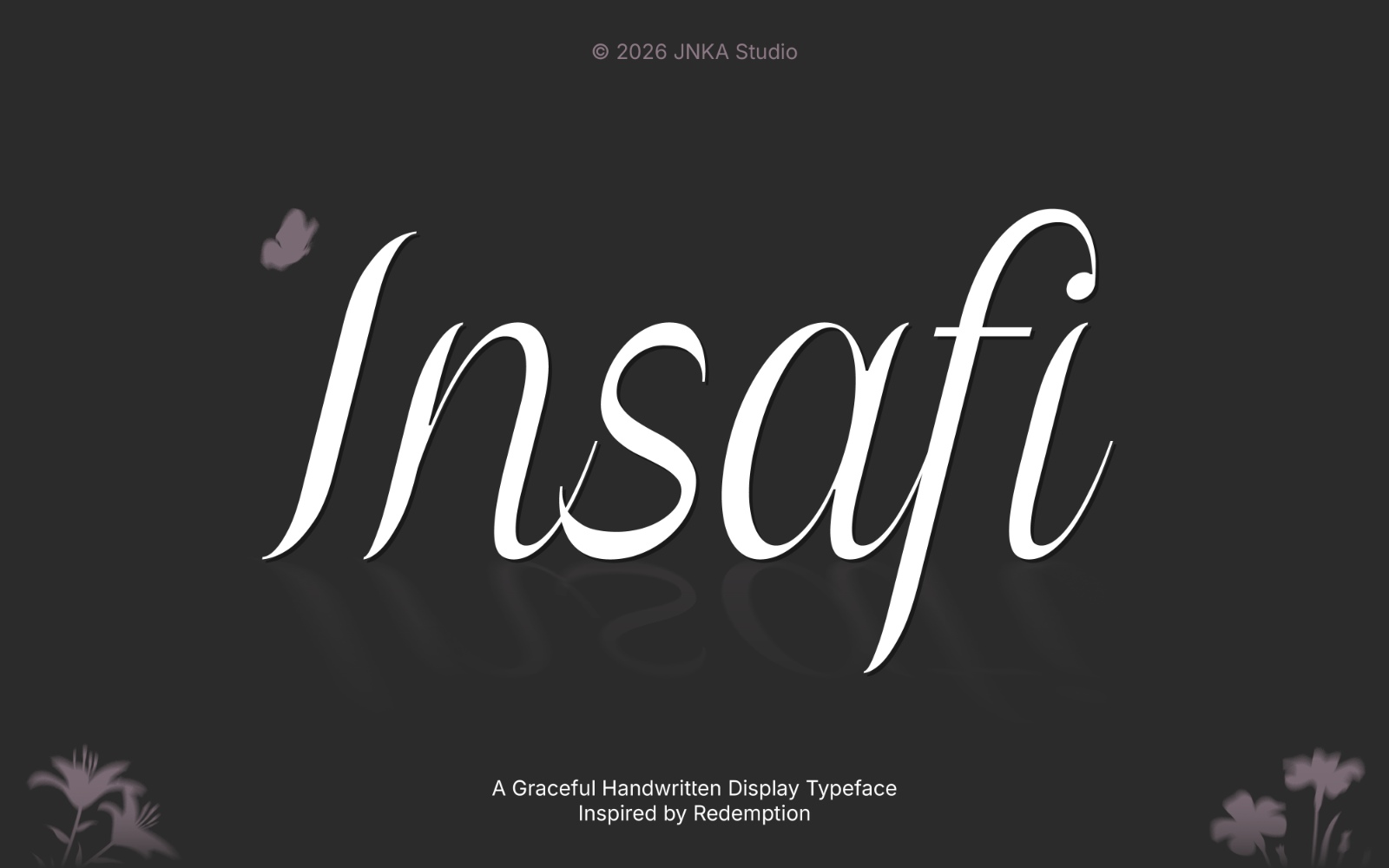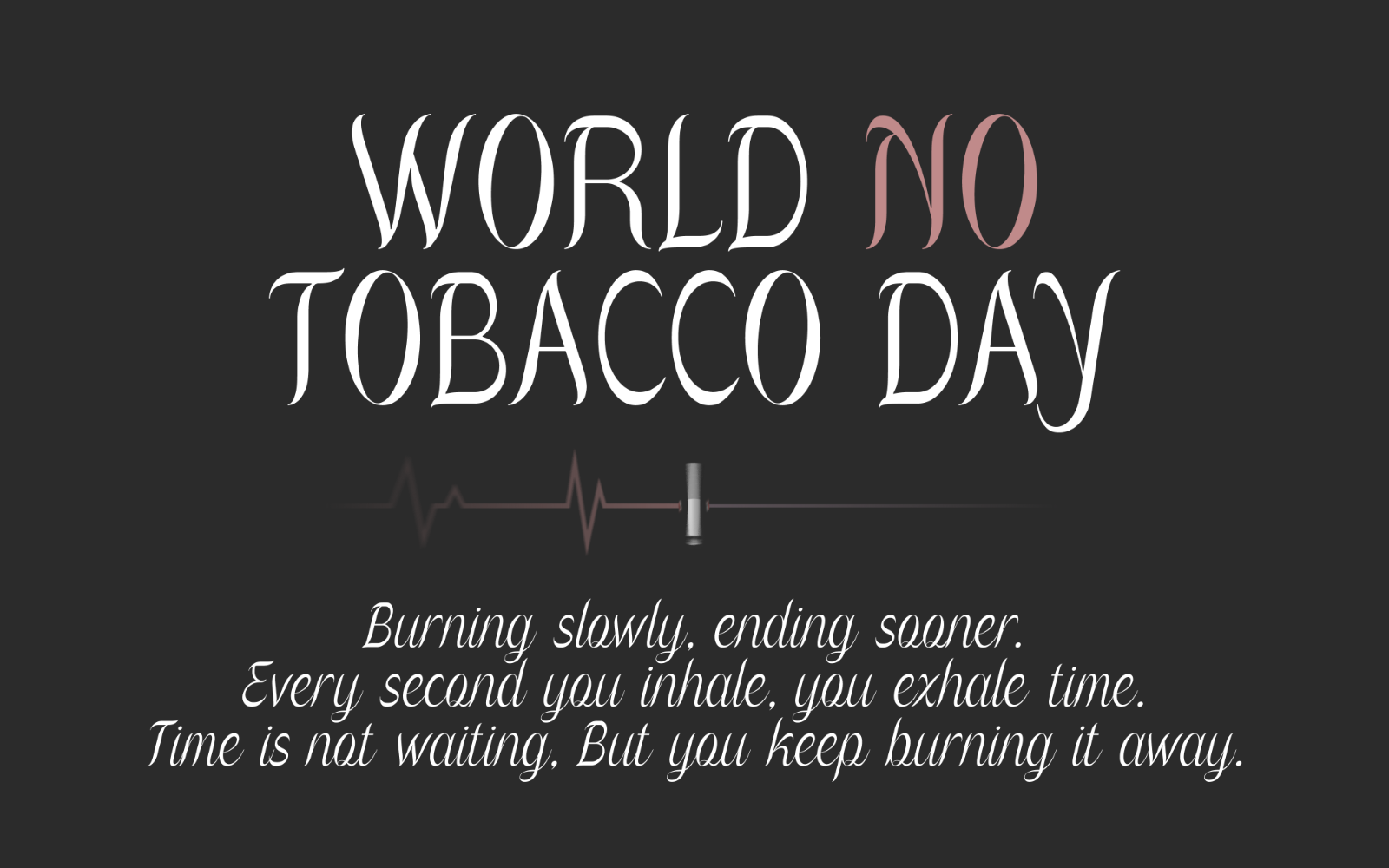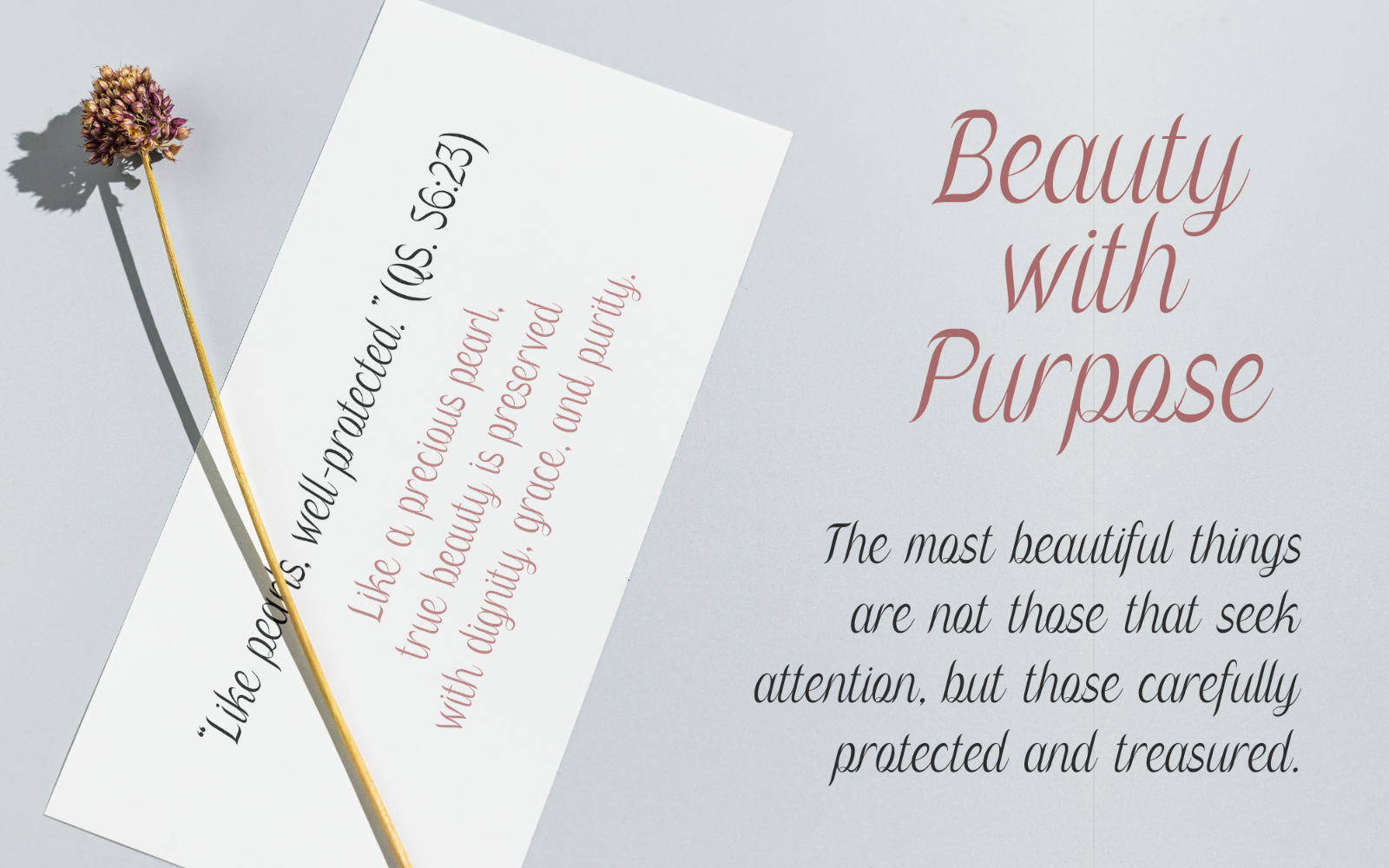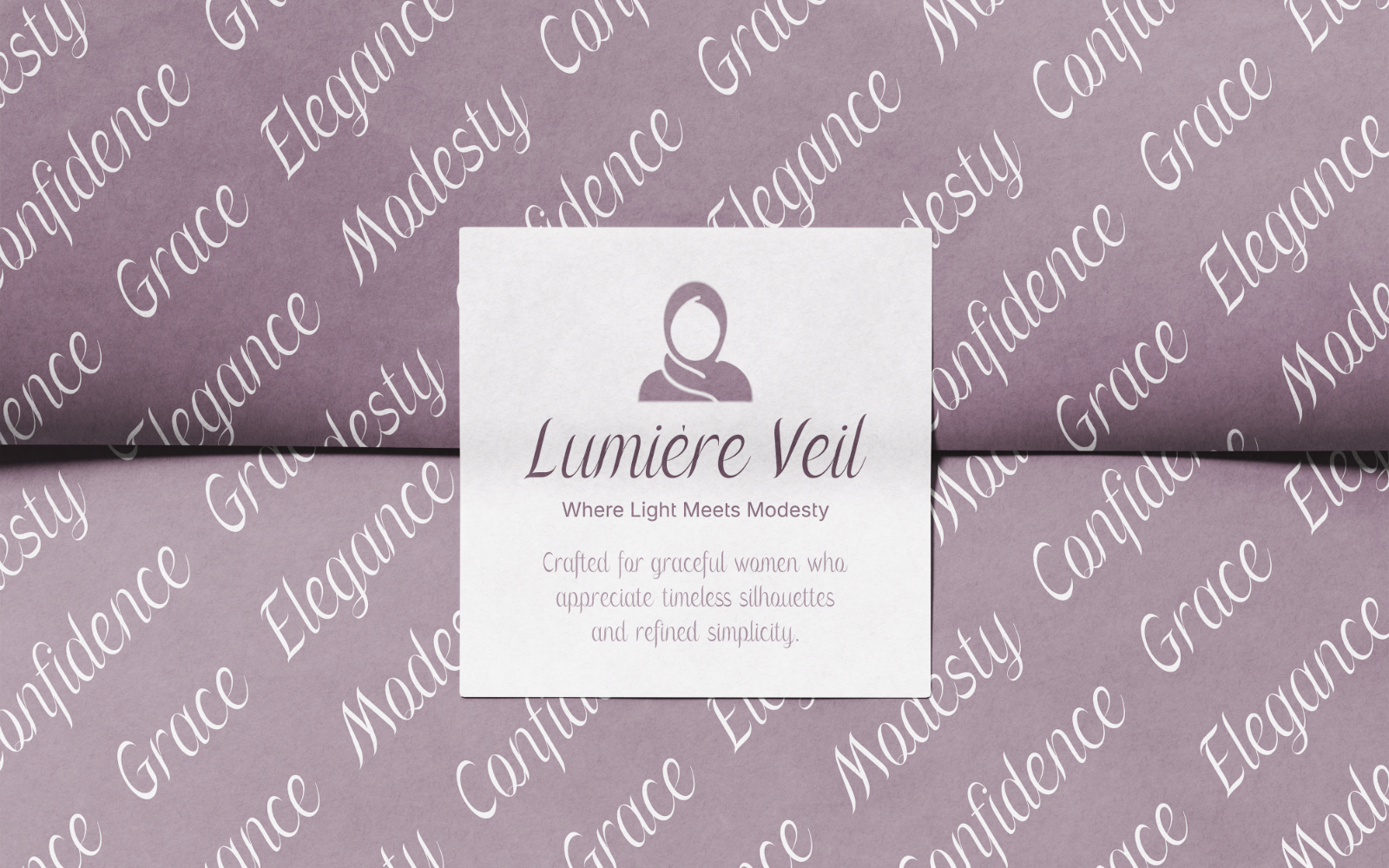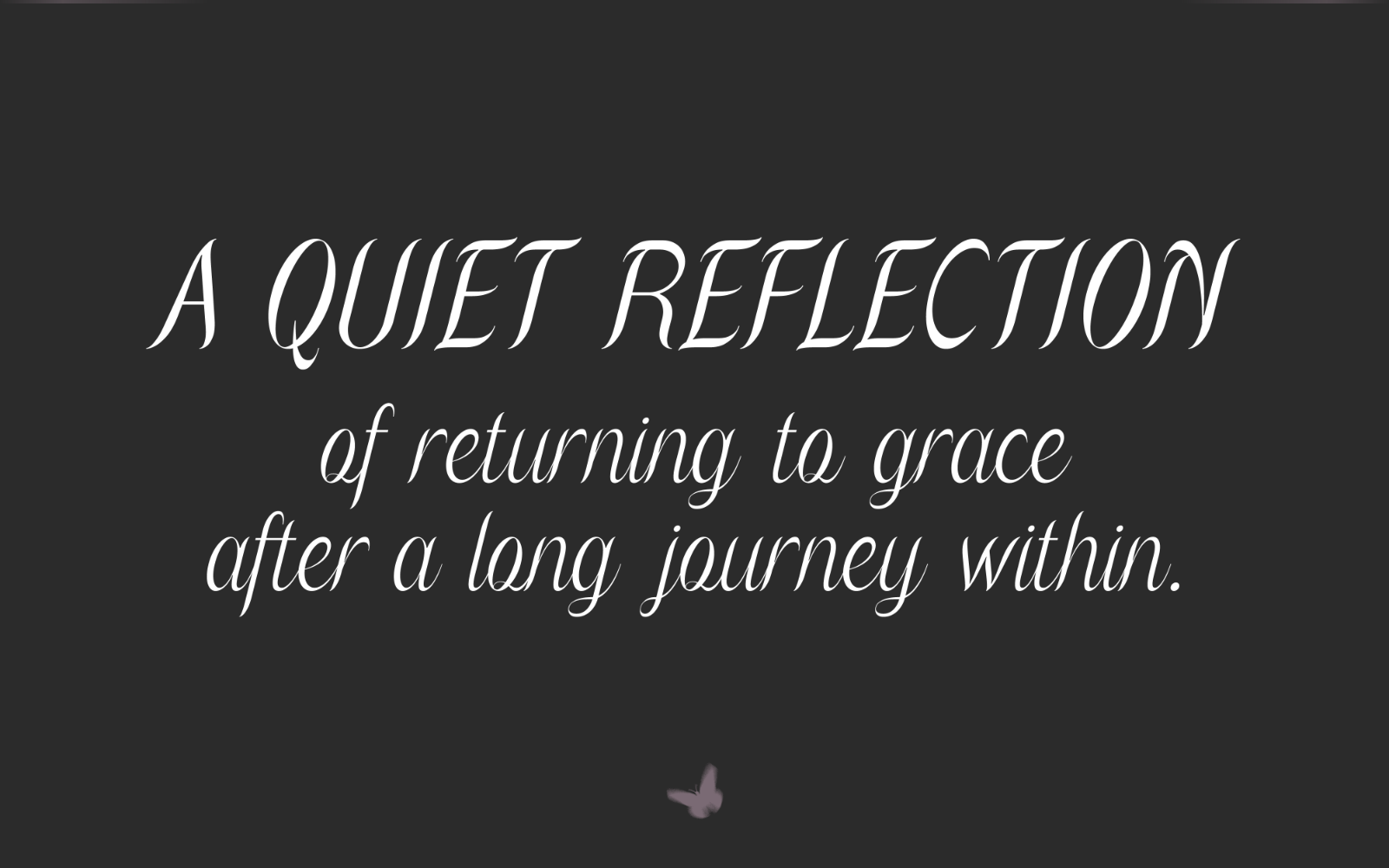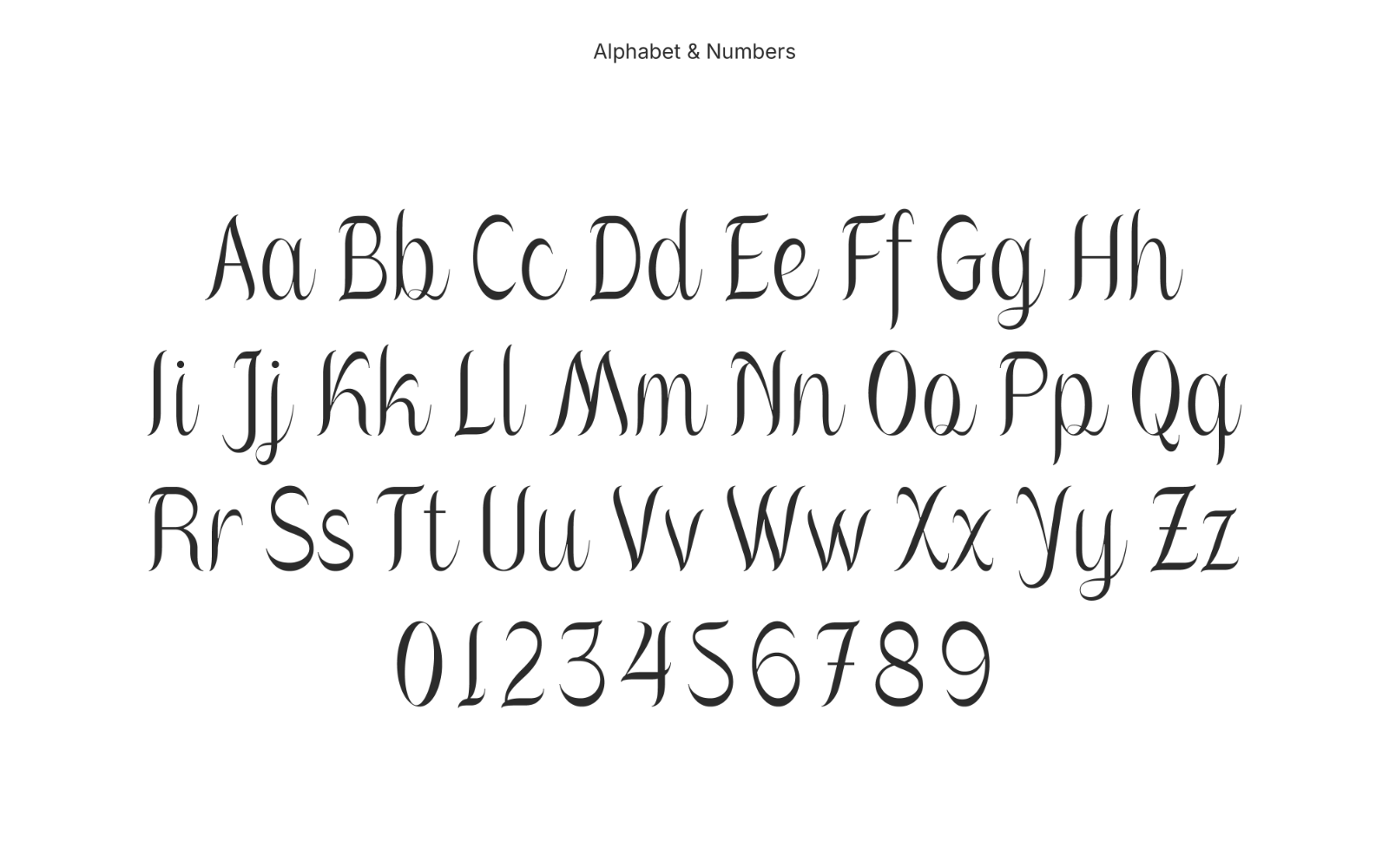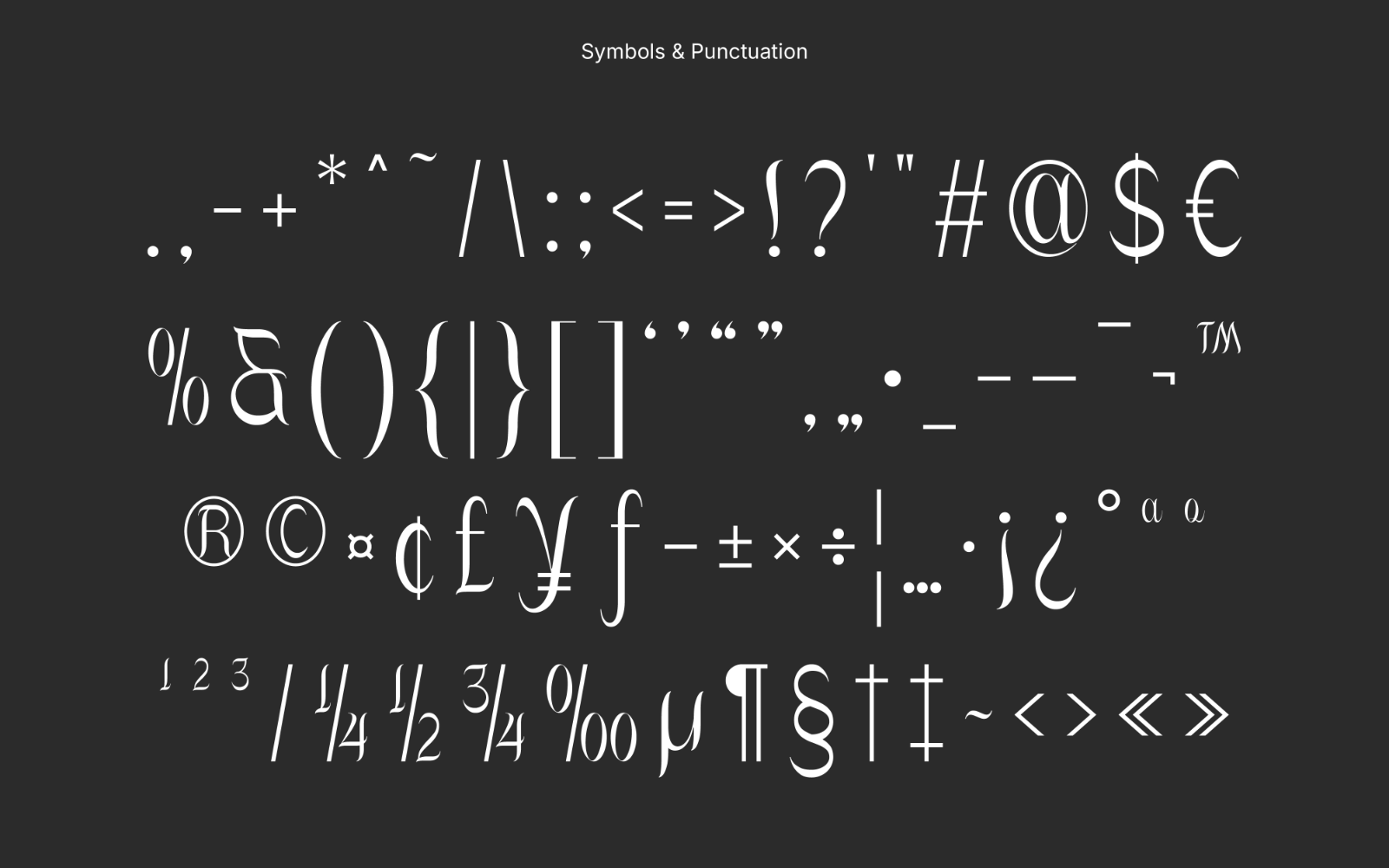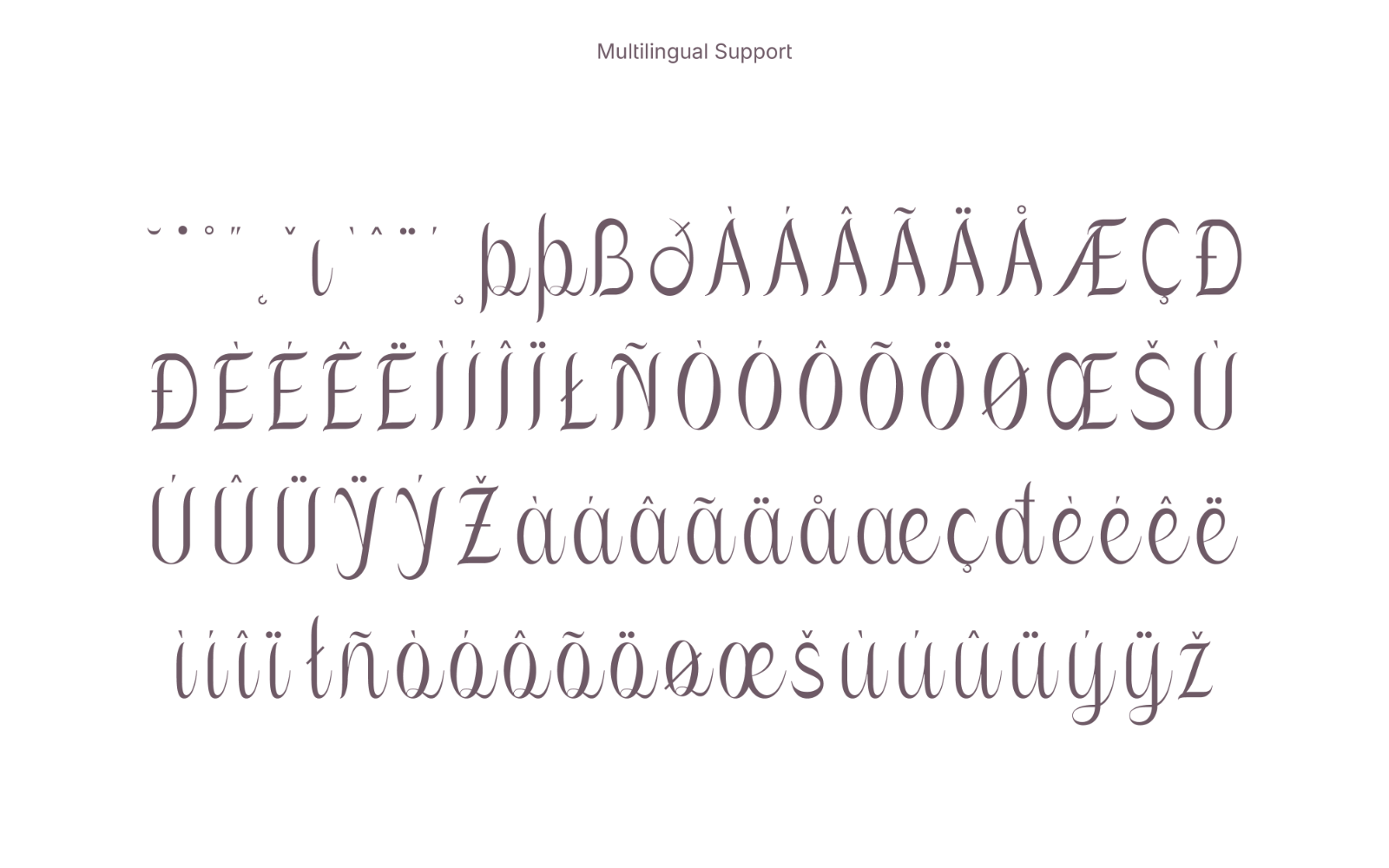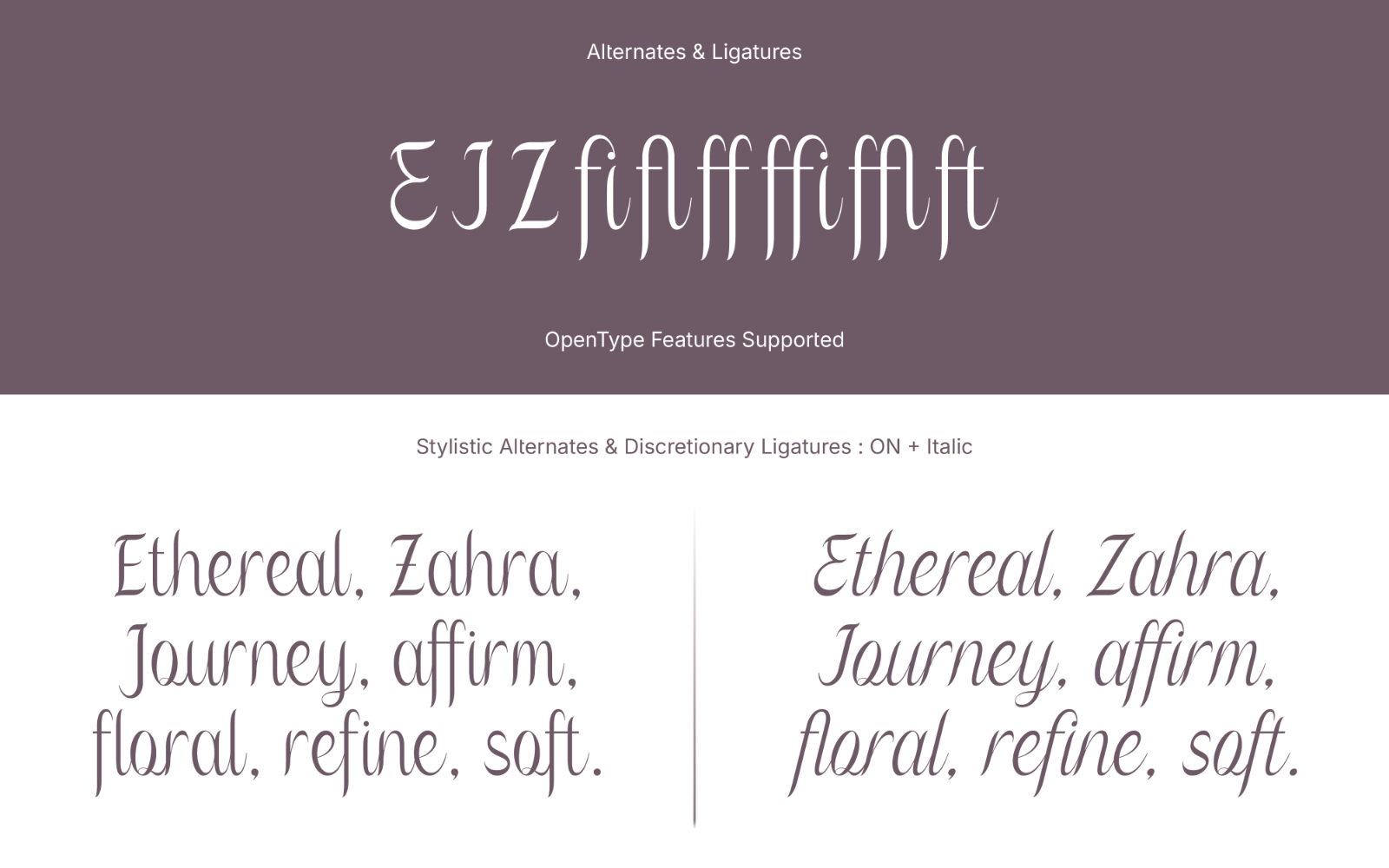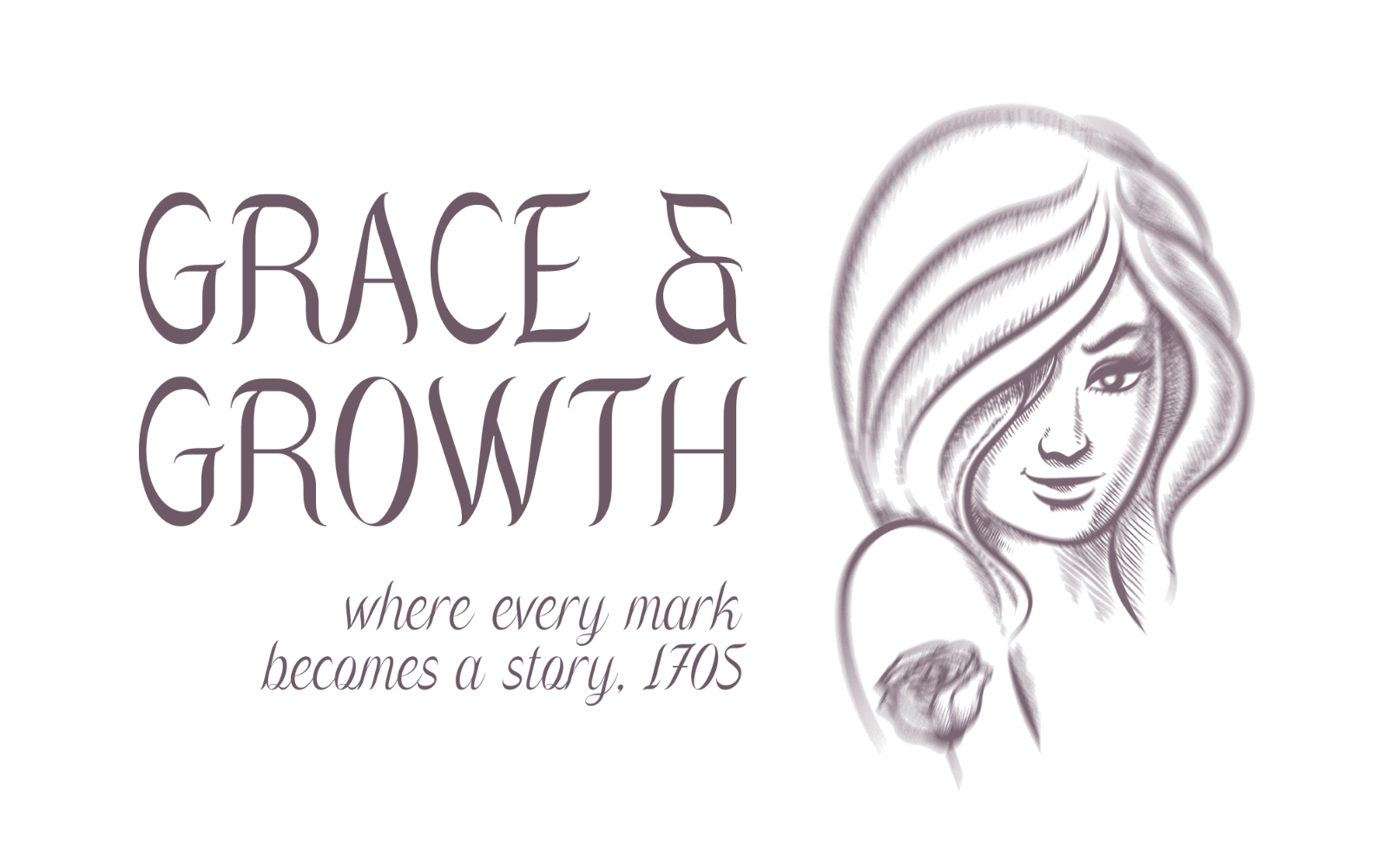
Insafi
Is a graceful handwritten display typeface inspired by a quiet journey of change, where past imperfections soften into something meaningful. Designed with expressive, organic forms, it captures the balance between elegance and raw humanity. Making it perfect for emotive branding, editorial work, and thoughtful visual storytelling. Rooted in the idea of redemption and renewal, Insafi brings a gentle sense of warmth, depth, and sincerity to every composition.
Font Features:
• Regular & Italic Styles
• Uppercase & Lowercase Letters
• Numbers & Standard Punctuation
• Symbols & Special Characters
• Basic Multilingual Support (Latin-based)
• Stylistic Alternates
• Standard & Decorative Ligatures
• Carefully Adjusted Kerning
• Approx. 239 Glyphs
• OpenType Features